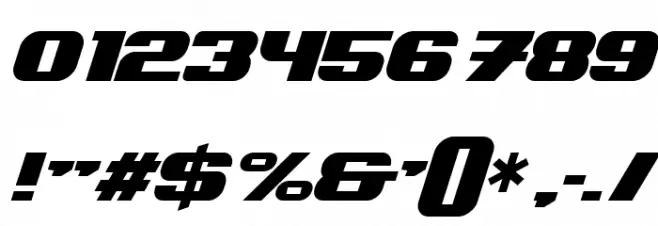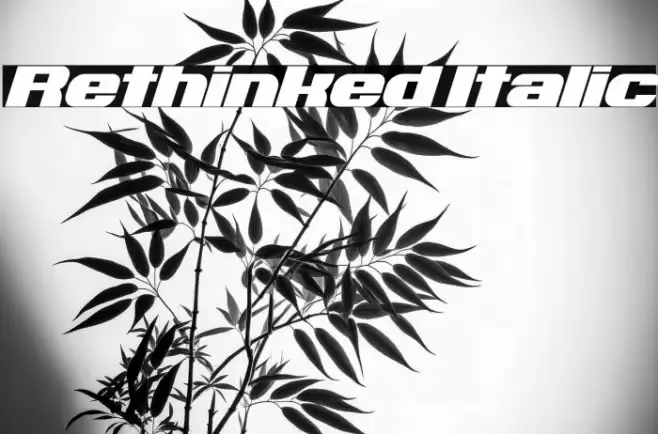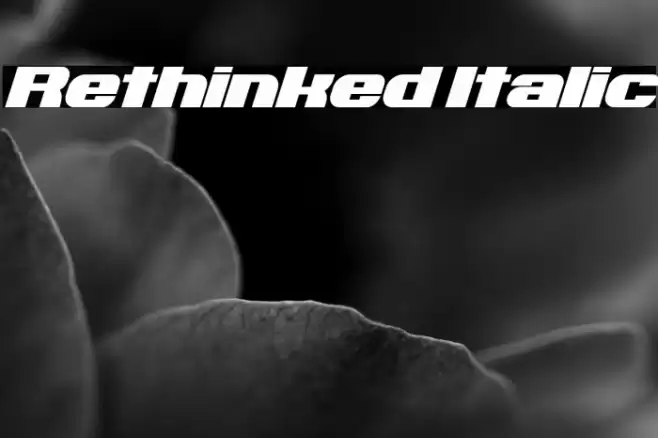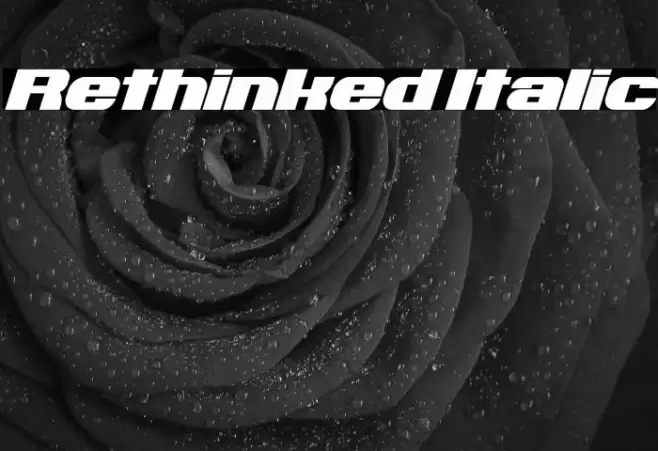
Rethinked Italic Font
Rethinked Italic Description
This font features a bold, italicized style with a strong, dynamic presence. The characters are designed with a forward slant, giving a sense of motion and speed. The strokes are thick and consistent, providing a robust and impactful appearance. The uppercase and lowercase letters maintain a uniform width, while the numerals and special characters complement the overall aesthetic. The font's design is modern and sleek, making it suitable for attention-grabbing headlines and branding projects.
A bold, italicized font with a dynamic and modern style from Uncategorized fonts.
• Proposed Projects: Ideal for sports branding, automotive advertisements, dynamic posters, and modern web design.
• Bold: Yes
• Italic: Yes
• Weight: Bold
• Width: Normal
• Character Spacing: Normal
• Contrast: Low
• Overall Style: Modern
• Use Case: Headlines, Logos